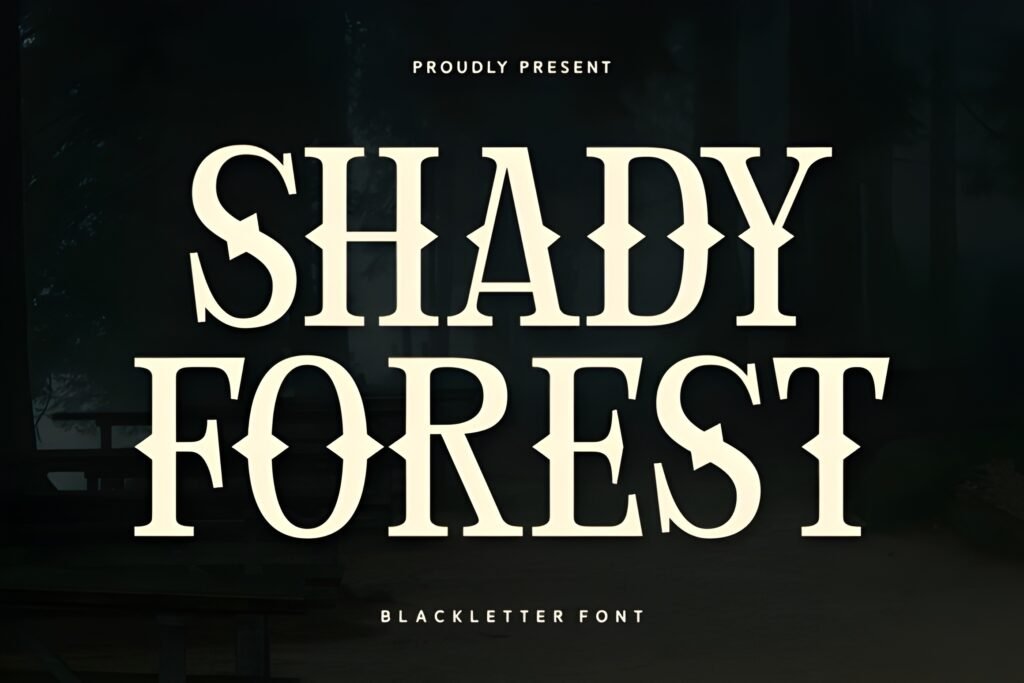
✒️ Shady Forest Font — Gothic Blackletter Typeface for Tattoos & Bold Design
Shady Forest Font is a captivating choice among modern Fonts for Tattoos, combining the raw power of blackletter tradition with a dark, mysterious vibe. Its bold, angular strokes and shadow‑inspired details evoke the atmosphere of ancient woods, gothic cathedrals, and medieval manuscripts, while adding a contemporary edge that makes it perfect for today’s creative projects.
This font is designed for those who want their words to carry weight and presence. Every letter feels carved with precision, balancing sharp geometry with artistic flair. Whether you’re creating tattoos, posters, logos, apparel prints, barbershop branding, or product packaging, Shady Forest ensures your design stands out with dramatic impact and timeless style.
Key Advantages
- Top Fonts for Tattoos — ideal for names, quotes, and symbolic phrases with gothic intensity.
- Bold blackletter aesthetic — angular strokes and medieval charm fused with modern design.
- Versatile applications — perfect for tattoos, branding, posters, apparel, and lifestyle graphics.
- Dark & mysterious vibe — inspired by shadowy forests and gothic artistry.
- Readable yet decorative — balances clarity with intricate details for professional use.
- Handcrafted feel — adds authenticity and individuality to every project.
With Shady Forest Font, your words become more than text — they transform into visual expressions of mystery, strength, and heritage. A must‑have typeface for tattoo artists, designers, and creatives who want to merge medieval elegance with modern boldness.